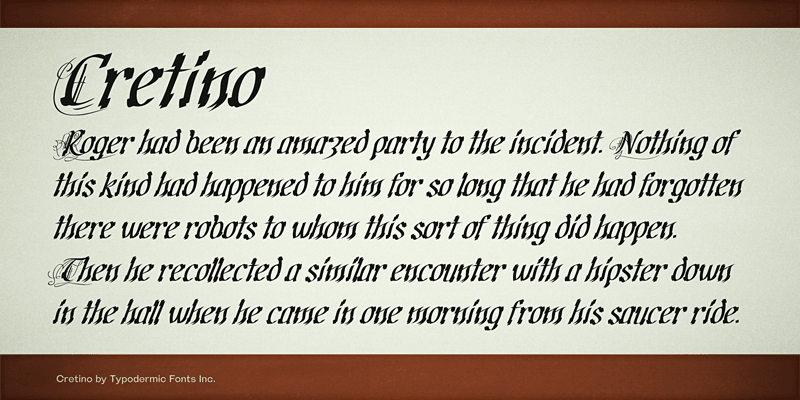
Preview and download Cretino Font. Created by Typodermic Fonts in Gothic Medieval styles with 100% Free license.
I created this fancy-shmancy script with nothing in mind other that testing out my new drawing tablet back in 2000. The new version of Cretino has been updated with better kerning, tighter vertical metrics, betters accents and more language coverage. Some of the more ornate swashes have been cleaned up and refined. This font includes a license that allows free commercial use: sometimes referred to as a desktop license. This allows you to install the font on a computer and use it to create posters, web graphics, game graphics, t-shirts, videos, signs, logos and more. Read the license agreement for details. If you'd like to embed this font in an app, ebook, on the web or anything that's not covered by the desktop license agreement, visit the link below. You'll find distributors who offer different types of licenses or you can contact me for help. http://typodermicfonts.com/cretino-for-fancy-lads/ |